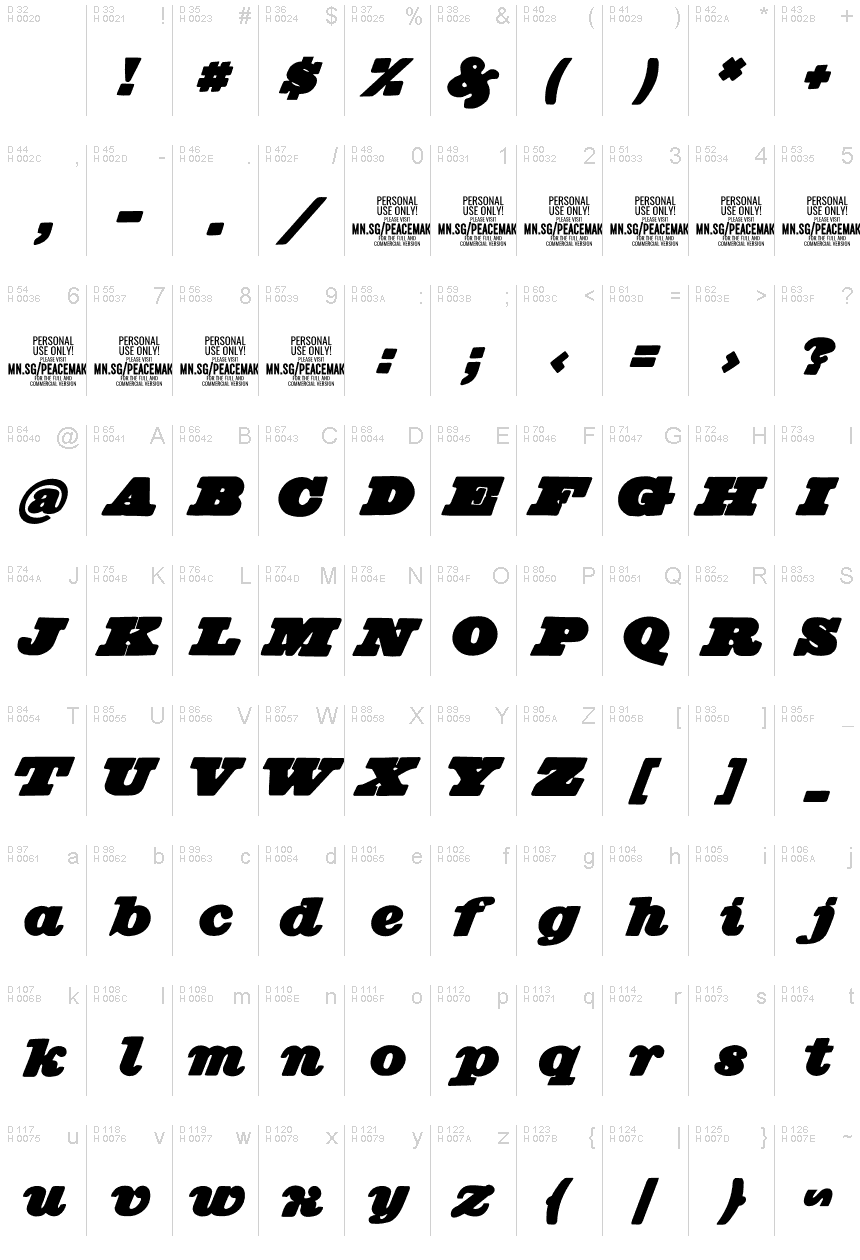
Peacemaker Black PERSONAL USE Italic
Peacemaker Black Italic, designed by Mans Greback, is a striking display font that commands attention with its bold and expanded letterforms. Its freeform serifs add a touch of elegance to any project that requires a strong and sophisticated typeface. Ideal for headlines, logos, posters, and packaging designs, Peacemaker Black Italic conveys power and authority while maintaining a sense of refinement. It's perfect for branding projects that require a distinctive look that will leave a lasting impression on the audience. This extra-bold font is perfect for businesses in luxury goods, fashion or high-end industries who want to portray an image of exclusivity and prestige.